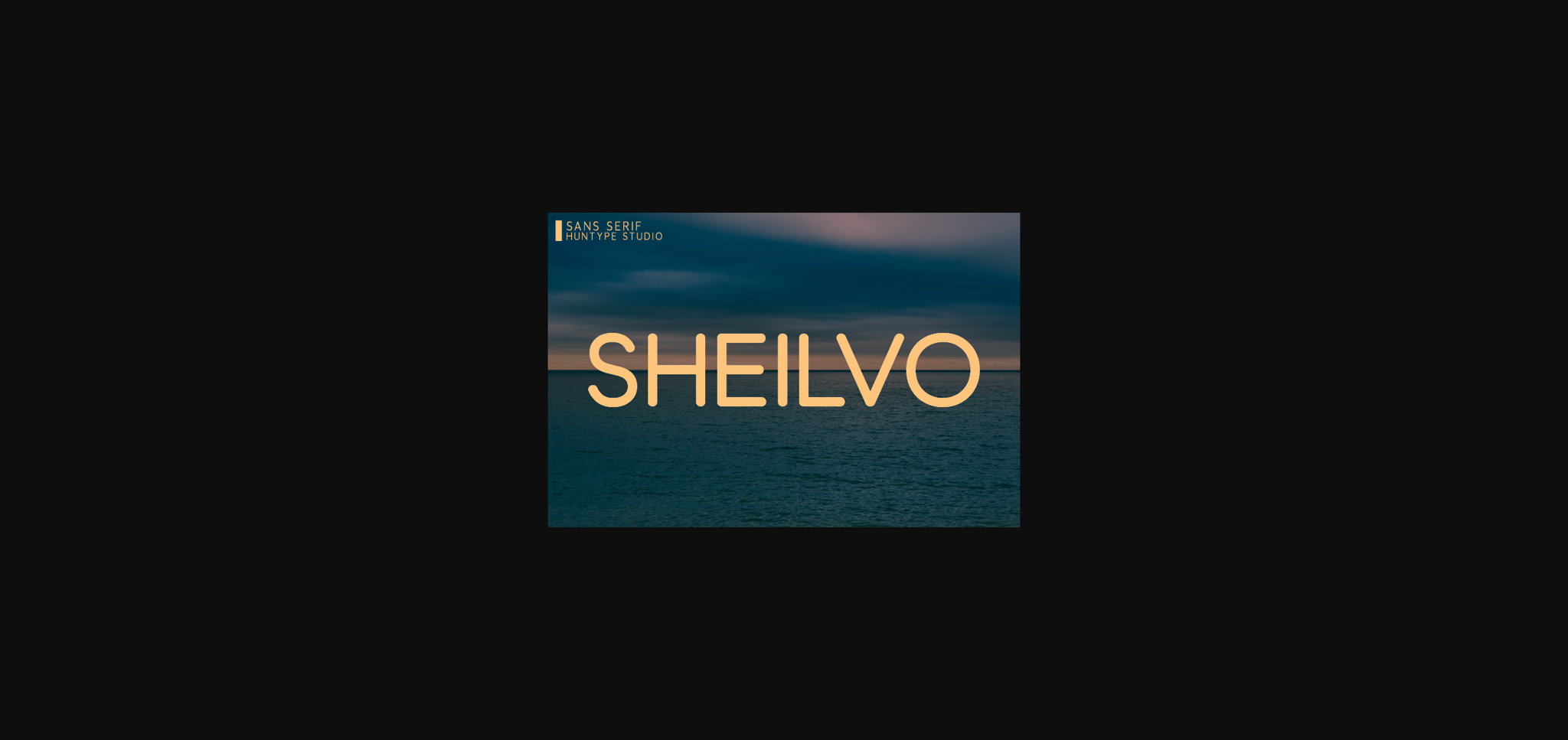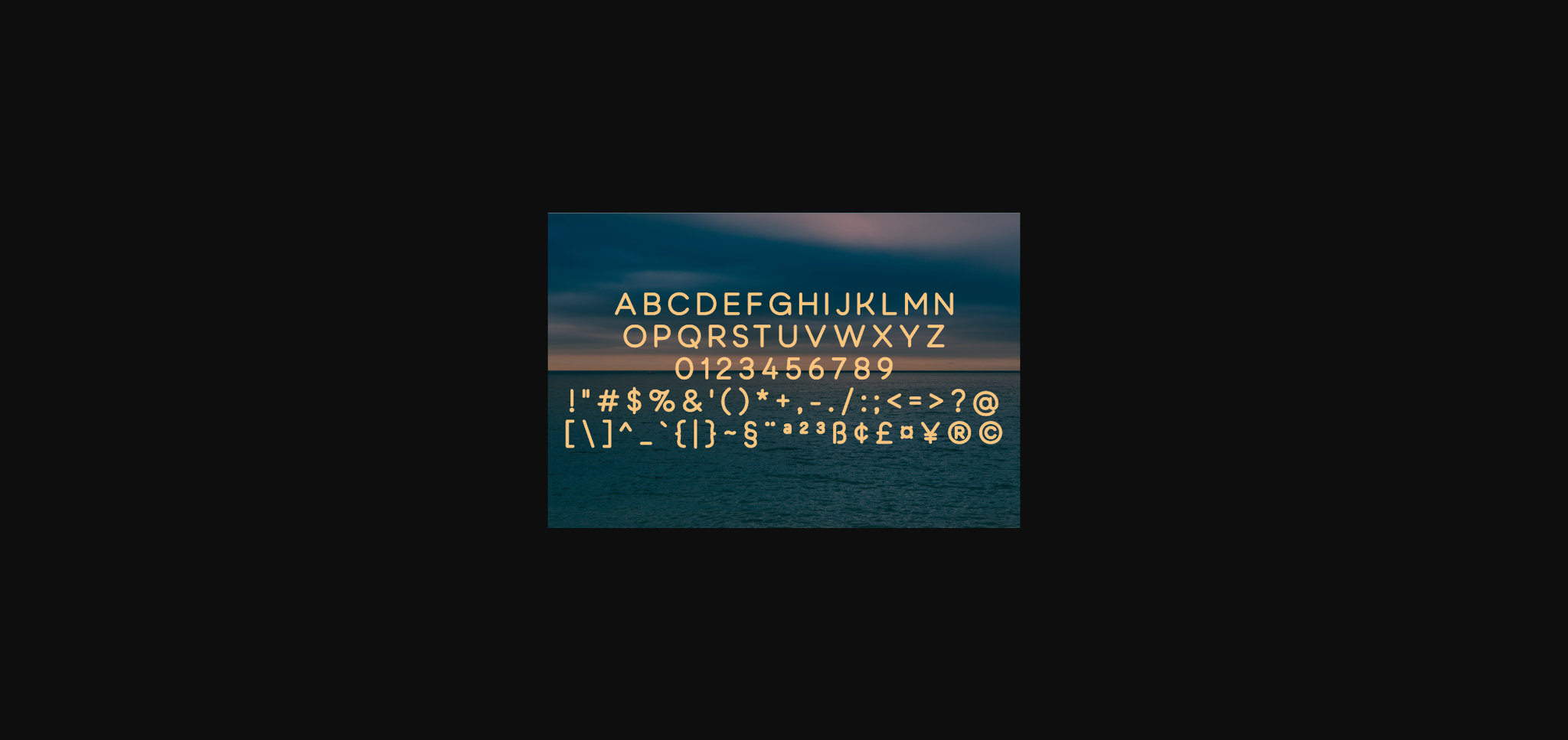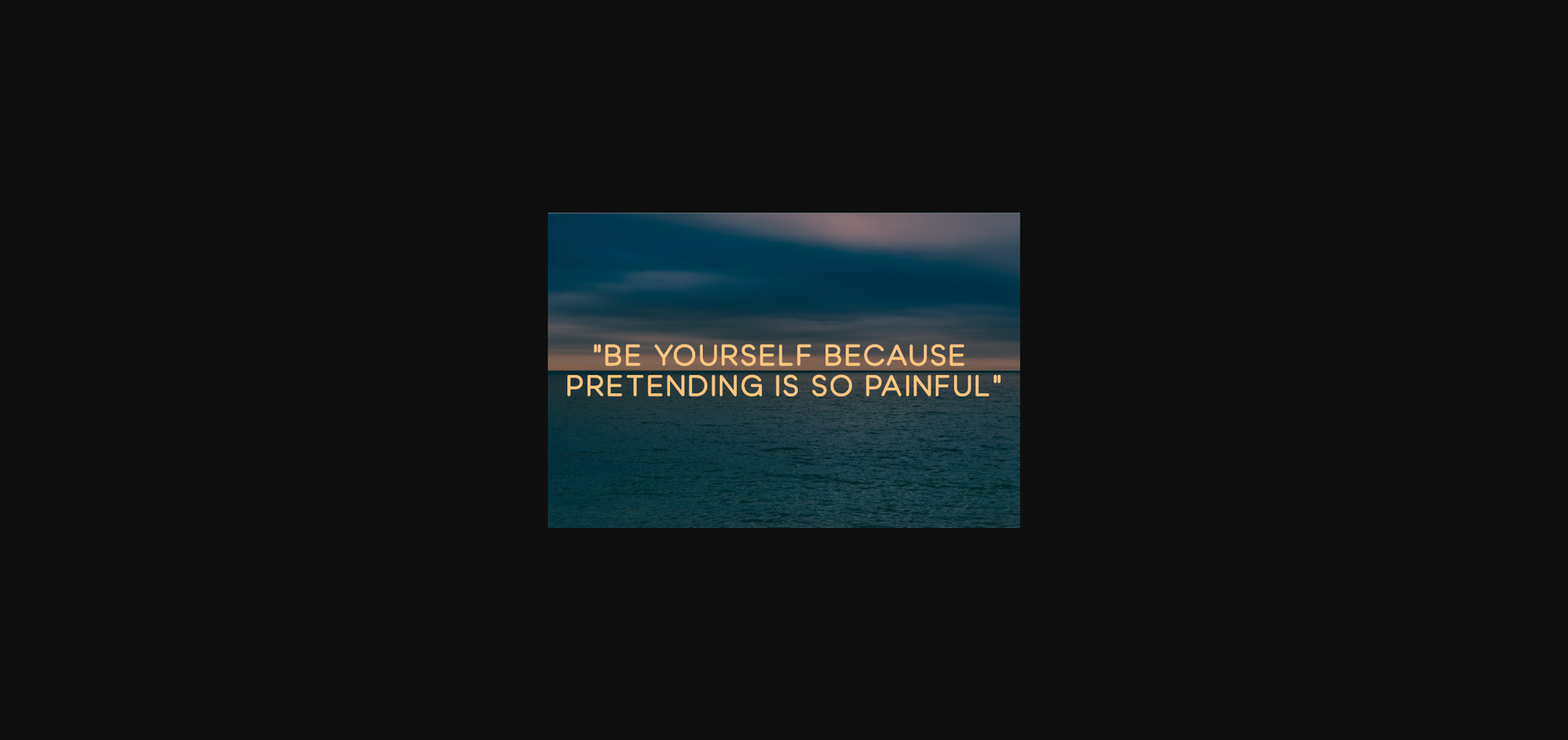
Sheilvo Font
About Sheilvo Font
Sheilvo is a simple and bold sans serif font. It is the best choice for creating eye catching logos, branding and quotes.